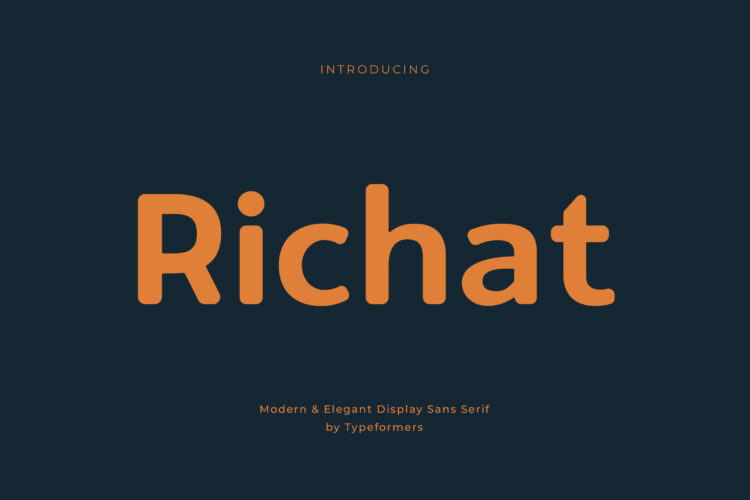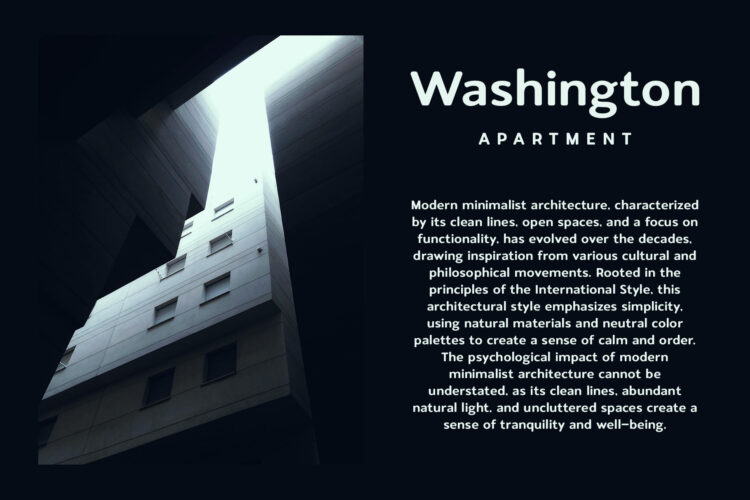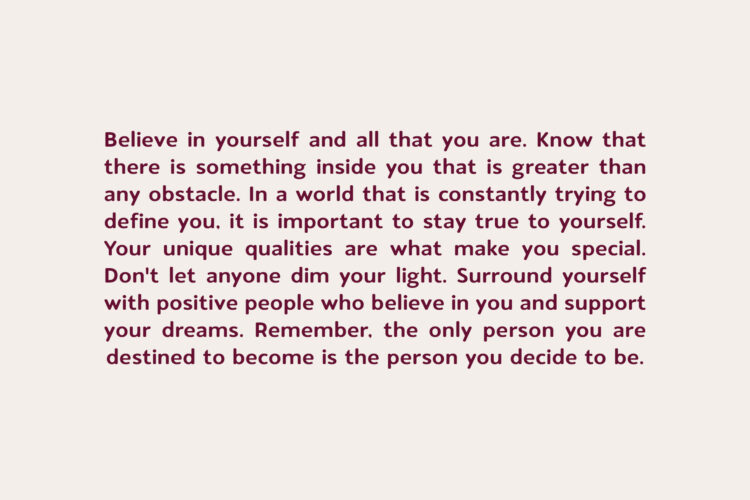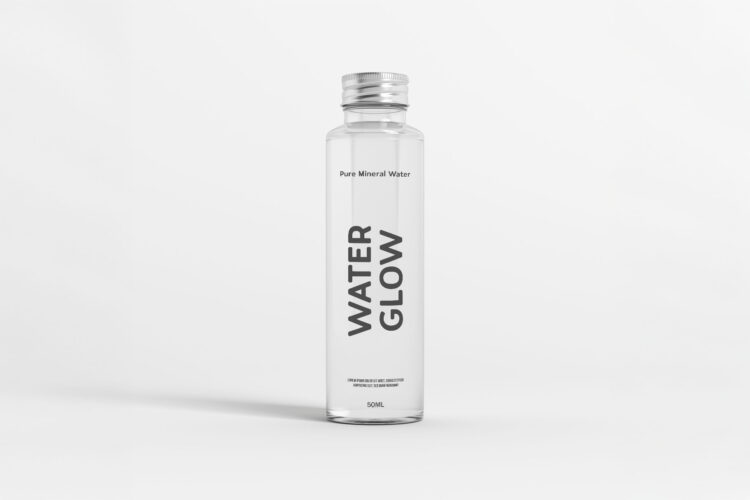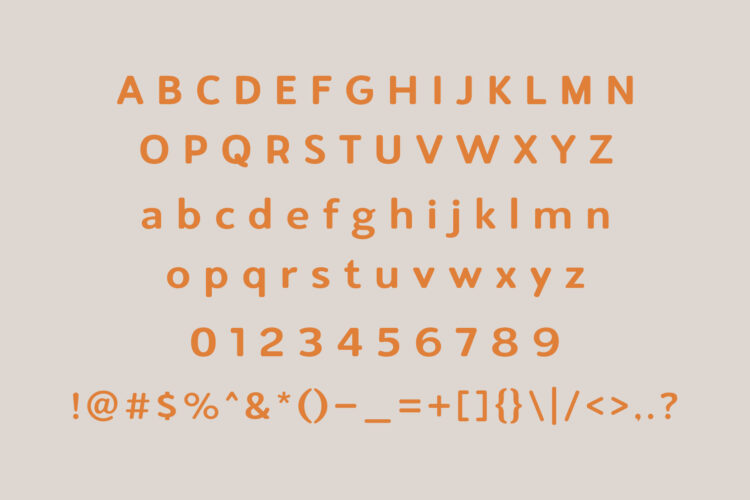
Introducing Richat – Modern Sans Serif.
Richat is a modern and simple font, best used as a display for headings, logos, branding, magazines, product packaging and invitations.